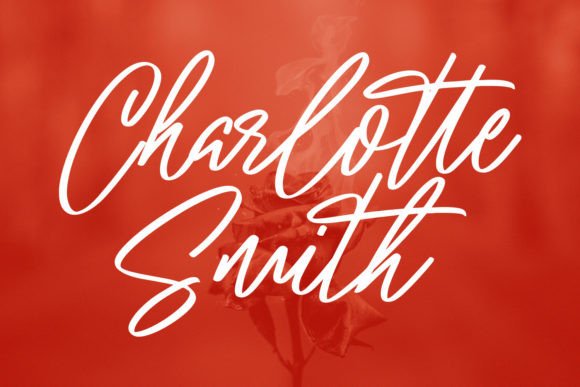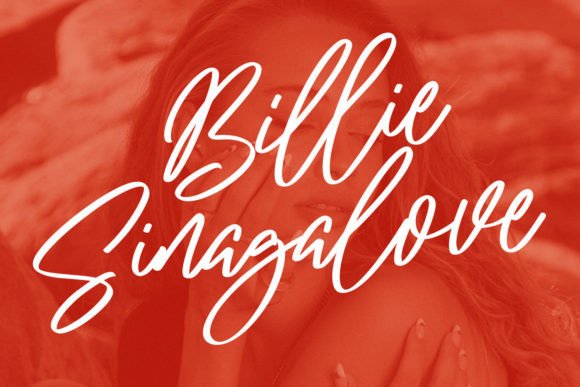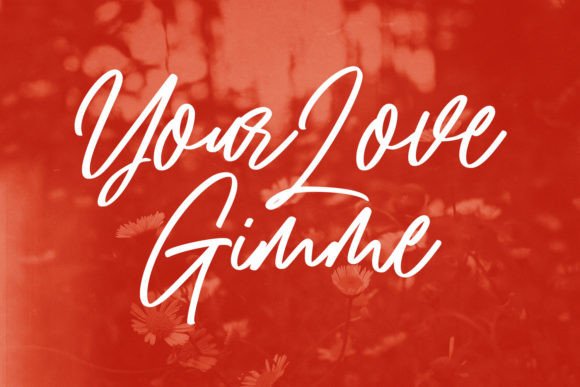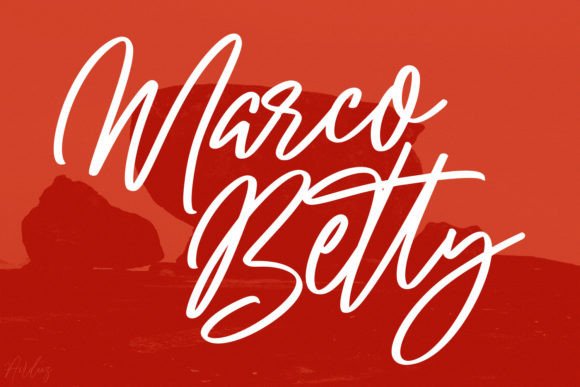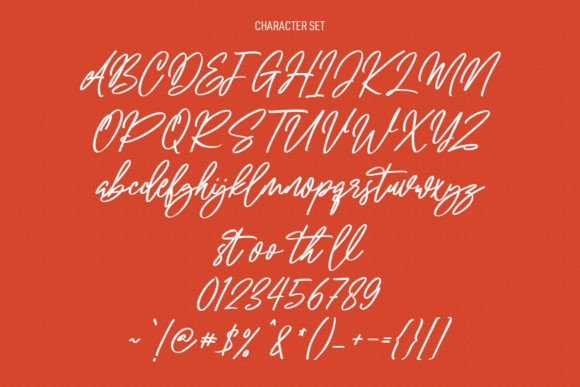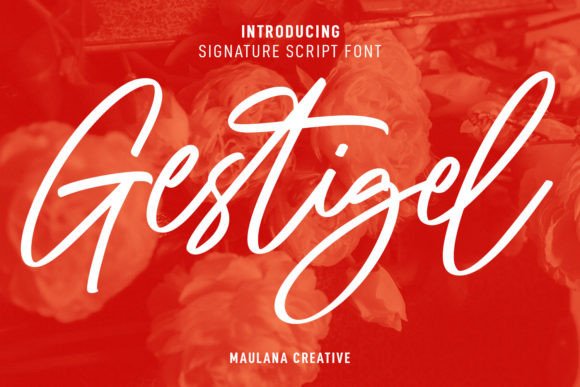
Introducing Gestigel Font: Add a Touch of Romance to Your Designs
Are you looking for a font that can add a romantic feel to your next project? Look no further than Gestigel Font. This enchanting handwritten font is perfect for designers and crafters who want to create beautiful and unique designs. In this article, we’ll take a closer look at Gestigel Font and explore its features, applications, and benefits.
What is Gestigel Font?
Gestigel Font is a versatile script font that is designed to add a touch of elegance and romance to your designs. This handwritten font is perfect for creating greeting cards, headlines, and other visual elements that require a personal touch. With its flowing curves and delicate lines, Gestigel Font is sure to capture the hearts of your audience.
Key Features of Gestigel Font
So, what makes Gestigel Font so special? Here are some of its key features:
- Handwritten style: Gestigel Font has a beautiful handwritten style that gives it a personal and unique touch.
- Versatile: This font is highly versatile and can be used for a wide range of applications, from greeting cards to headlines.
- Romantic feel: Gestigel Font is designed to add a romantic feel to your designs, making it perfect for Valentine’s Day, wedding, and anniversary-themed projects.
- Elegant curves: The font features elegant curves and delicate lines that give it a sophisticated and refined look.
Applications of Gestigel Font
Gestigel Font has a wide range of applications, making it a great addition to any designer’s toolkit. Here are some ideas to get you started:
- Greeting cards: Use Gestigel Font to create beautiful and unique greeting cards for special occasions like Valentine’s Day, birthdays, and weddings.
- Headlines: Add a touch of elegance to your headlines with Gestigel Font. It’s perfect for creating eye-catching titles for blog posts, articles, and social media graphics.
- Wedding and event designs: Gestigel Font is perfect for creating wedding invitations, save-the-date cards, and other event-related designs.
- Branding and packaging: Use Gestigel Font to add a personal touch to your brand’s packaging and marketing materials.
Benefits of Using Gestigel Font
So, why should you choose Gestigel Font for your next project? Here are some benefits of using this beautiful font:
- Unique and creative: Gestigel Font is a unique and creative way to add a personal touch to your designs.
- Easy to read: Despite its elegant curves, Gestigel Font is easy to read, making it perfect for body text and headlines.
- Customizable: You can customize Gestigel Font to fit your brand’s style and tone, making it a great addition to your design toolkit.
- Time-saving: With Gestigel Font, you can create beautiful designs in no time, saving you time and effort.
Tips for Using Gestigel Font
Here are some tips for using Gestigel Font effectively:
- Pair it with other fonts: Experiment with pairing Gestigel Font with other fonts to create a unique and interesting look.
- Use it sparingly: Use Gestigel Font sparingly to create a sense of elegance and sophistication.
- Experiment with colors: Try out different colors and textures to add depth and interest to your designs.
In conclusion, Gestigel Font is a beautiful and versatile script font that can add a romantic feel to your designs. With its elegant curves, delicate lines, and handwritten style, this font is perfect for designers and crafters who want to create unique and eye-catching designs. Whether you’re creating greeting cards, headlines, or branding materials, Gestigel Font is a great choice. So why not give it a try and see how it can elevate your designs?